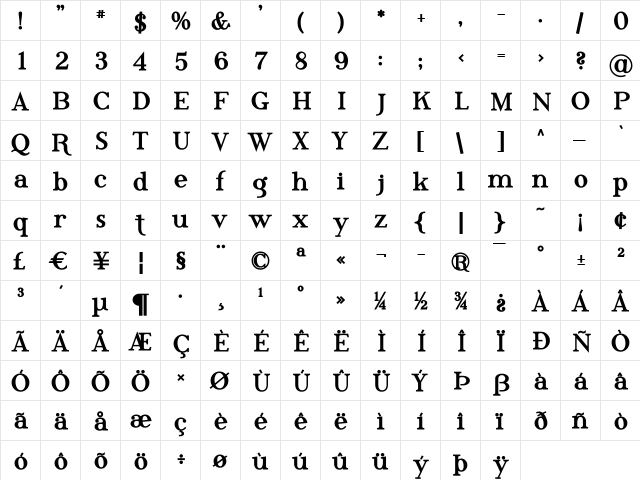
Phosphorus Triselenide Regular
| Designer | Derek Vogelpohl |
Design Context for Phosphorus Triselenide Typeface
Phosphorus Triselenide takes a measured approach to typography — its balanced proportions and neutral character make it a reliable workhorse for both digital and print work.